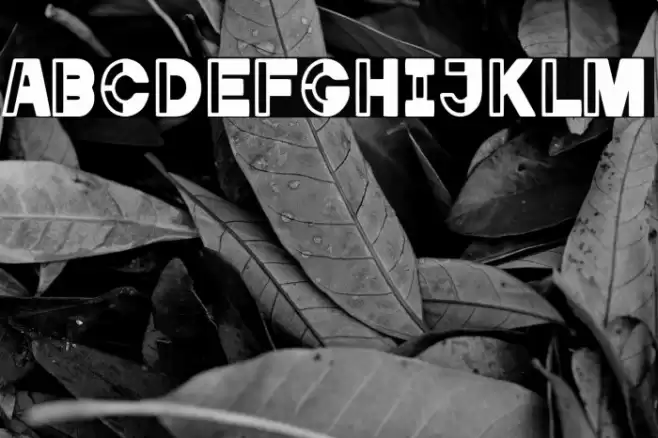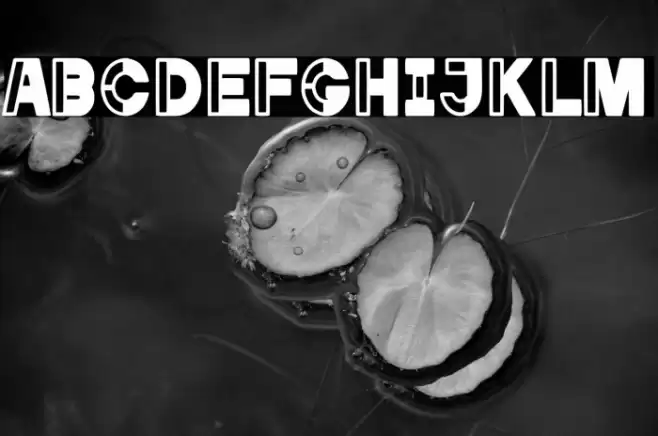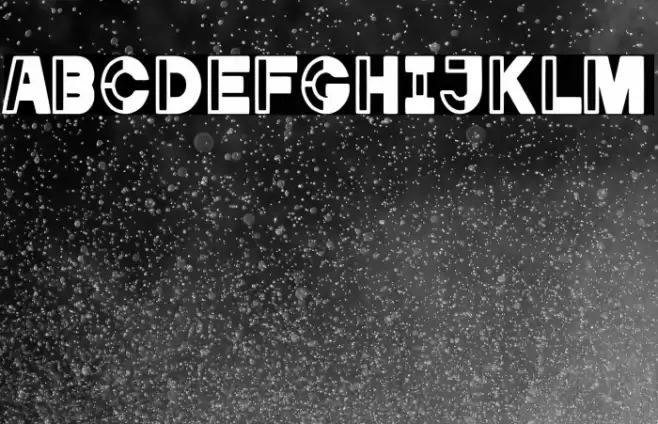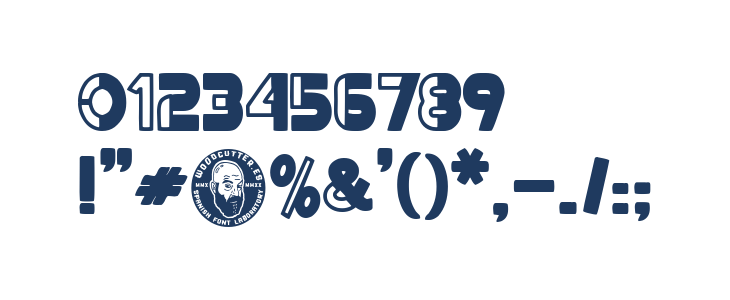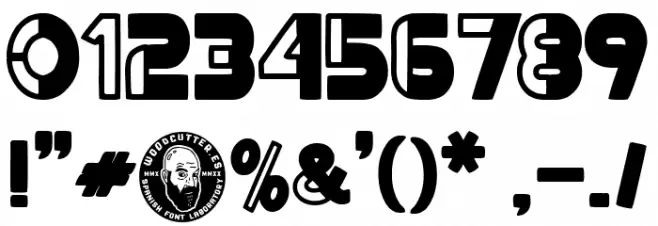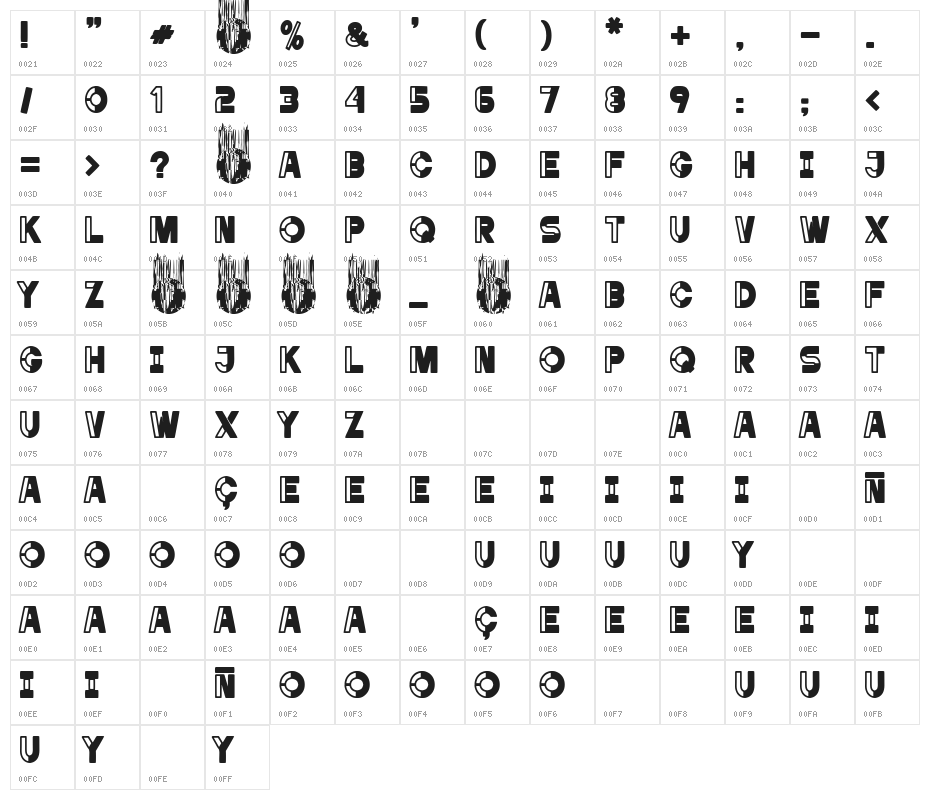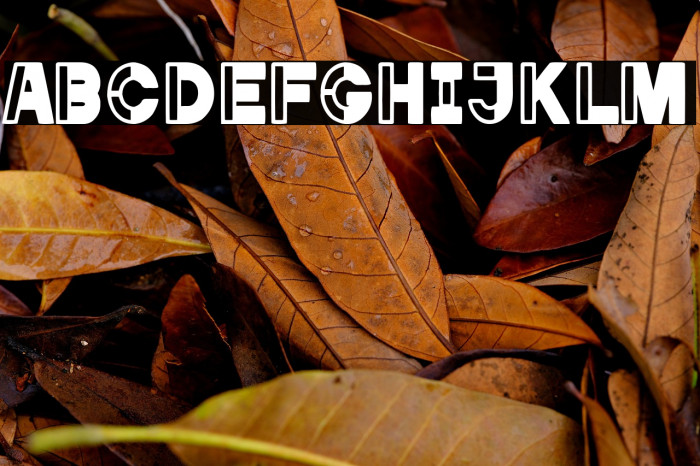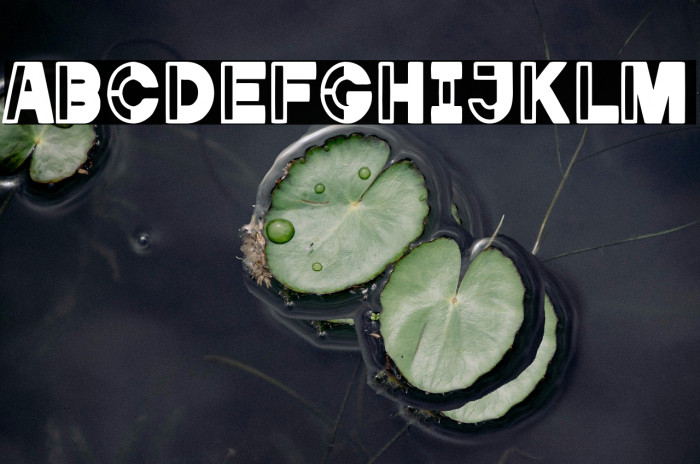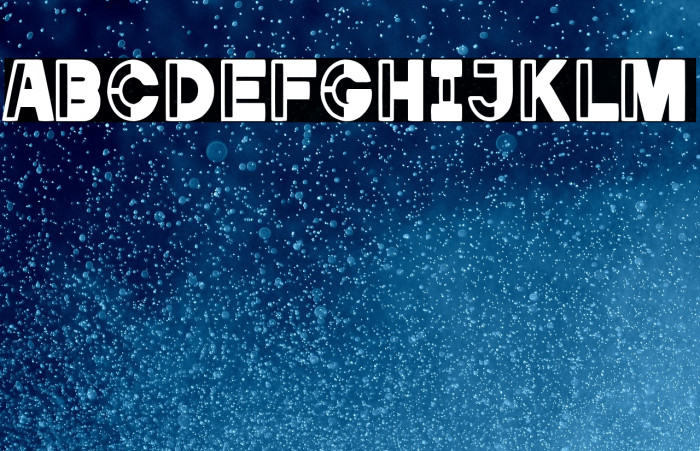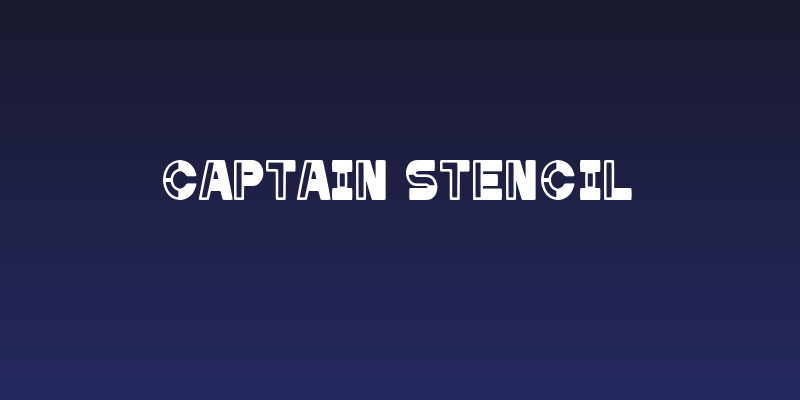
Captain Stencil Font
Captain Stencil Description
This font features a bold, stencil-like design with strong geometric shapes and cut-out sections that create a striking visual effect. The uppercase letters are particularly prominent, with thick lines and sharp angles that give them a commanding presence. The lowercase letters maintain the same boldness, ensuring consistency throughout the typeface. Numbers and special characters are designed with the same stencil style, making them easily recognizable and cohesive with the rest of the font. The overall aesthetic is modern and industrial, making it suitable for projects that require a bold and impactful typeface.
A bold, stencil-style font with geometric shapes and cut-out sections from Uncategorized fonts.
- Font: Captain Stencil
- Proposed Projects: Ideal for military-themed designs, posters, branding, and signage where a bold statement is needed.
- Overall Style: Modern, Industrial
Captain Stencil UPPERCASE
Captain Stencil LOWERCASE
Captain Stencil OTHER CHARS